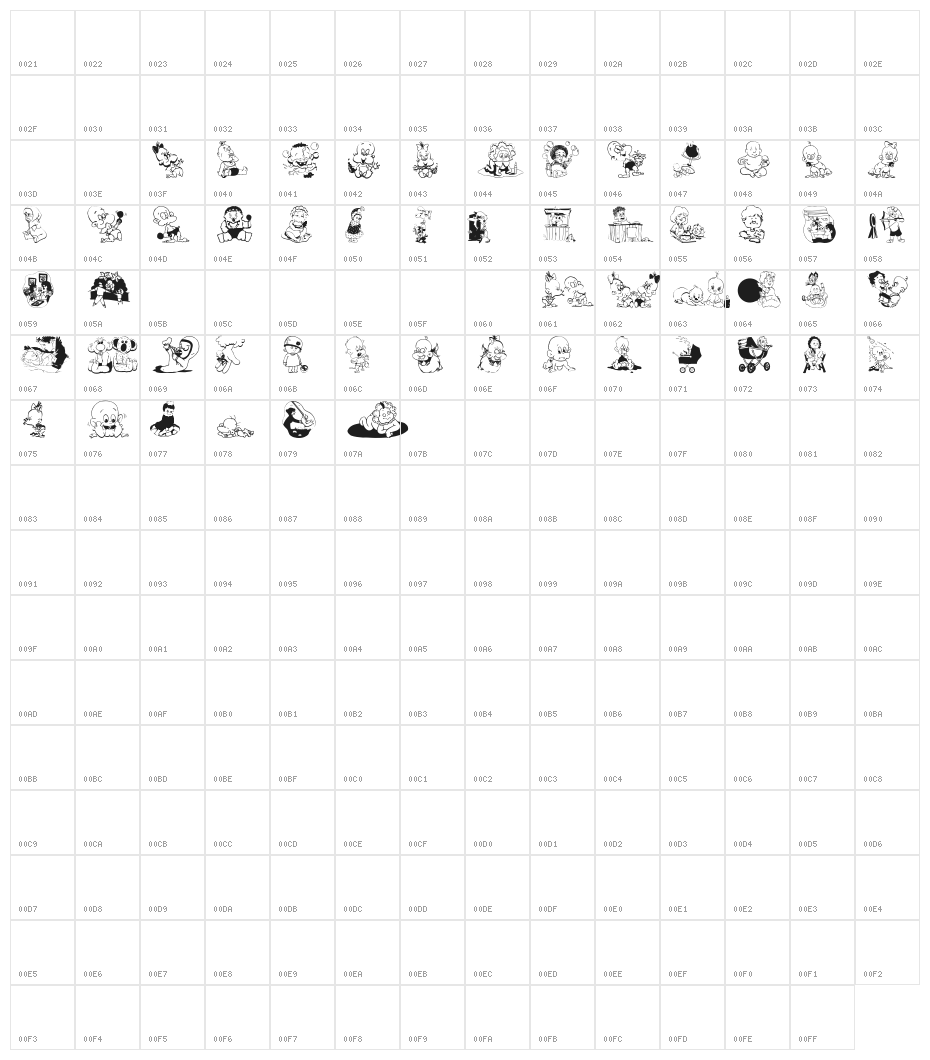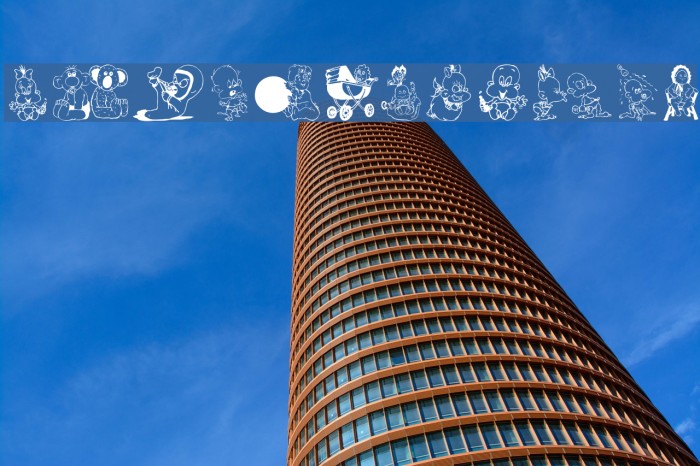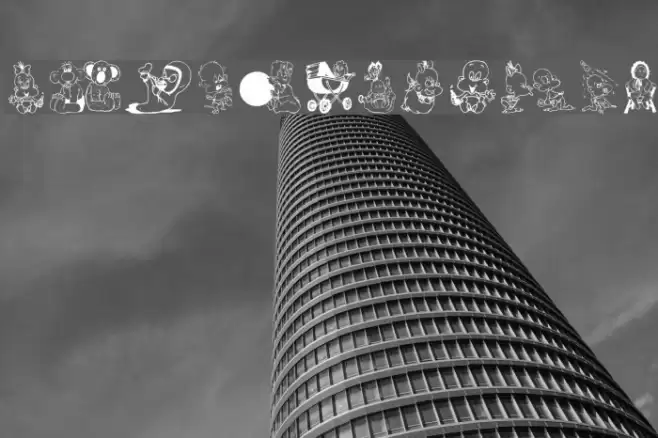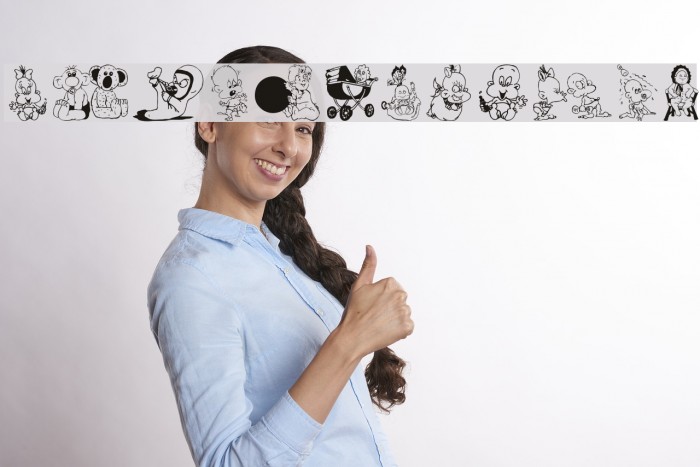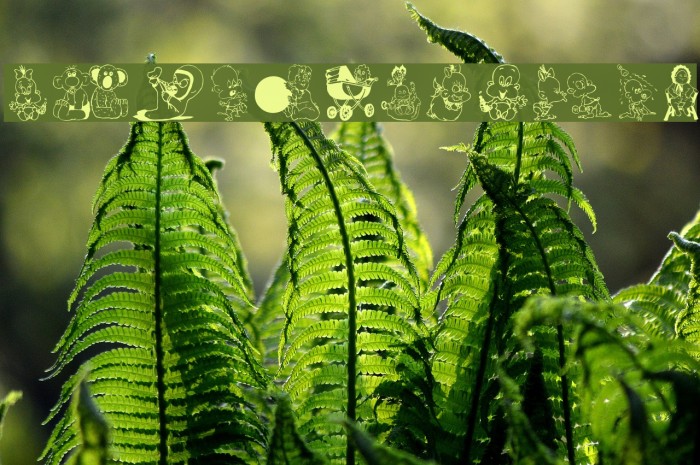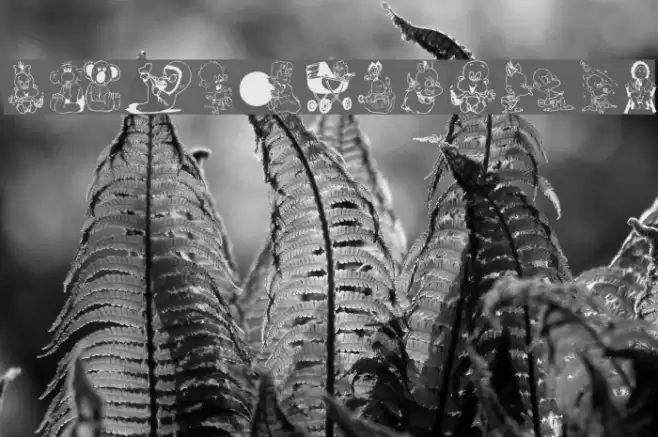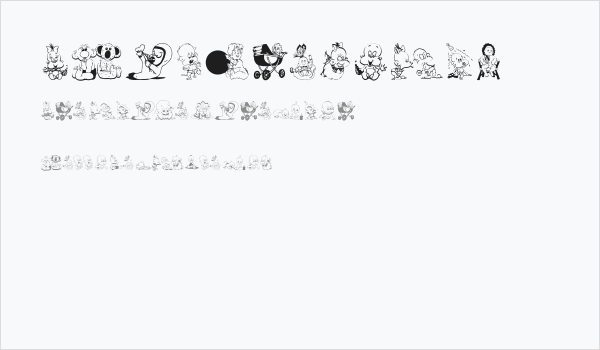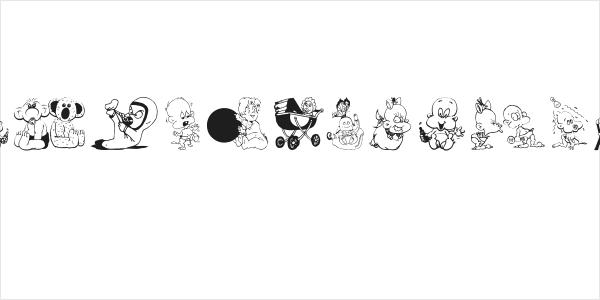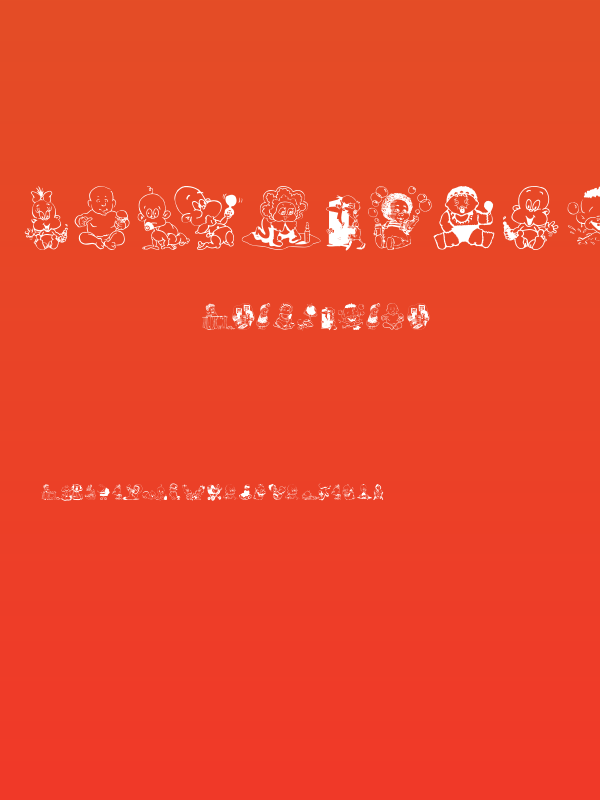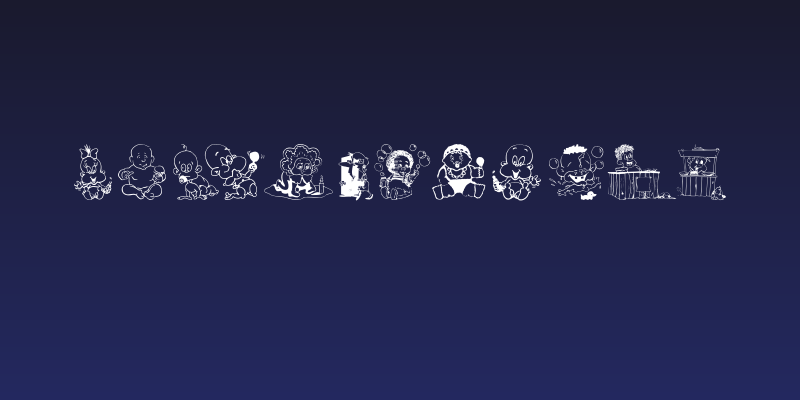
ChildrenBats Font
ChildrenBats Description
| Overall Style | Playful, Whimsical, Decorative |
| Use Case | Decorative elements, Themed graphics, Invitations, Posters |
| Proposed Projects | Children's books, birthday invitations, scrapbooking, educational materials, playful branding. |